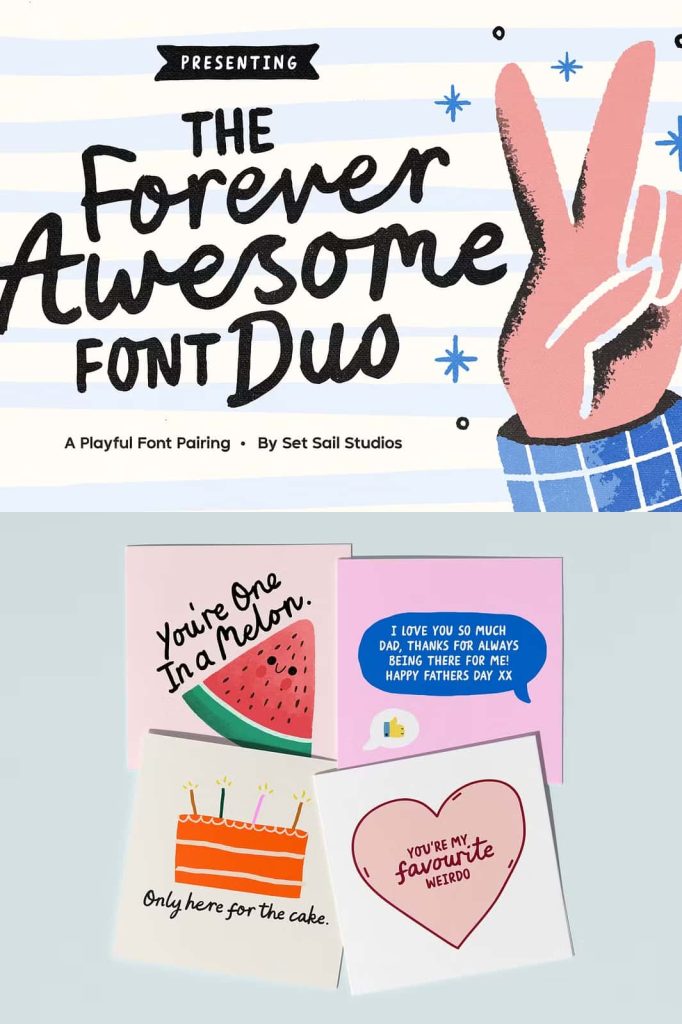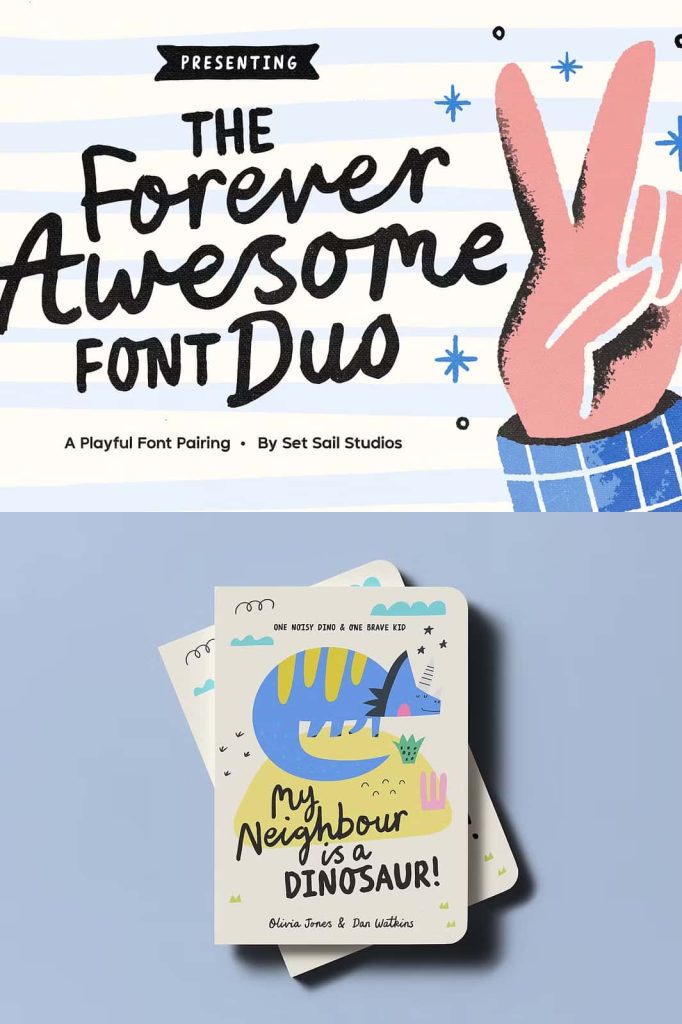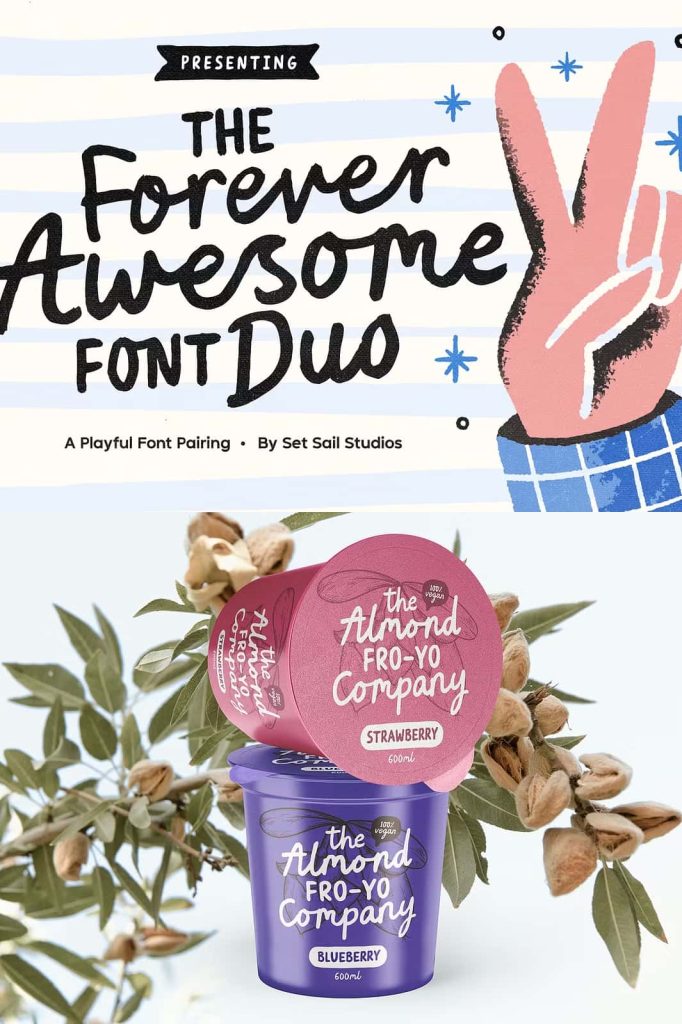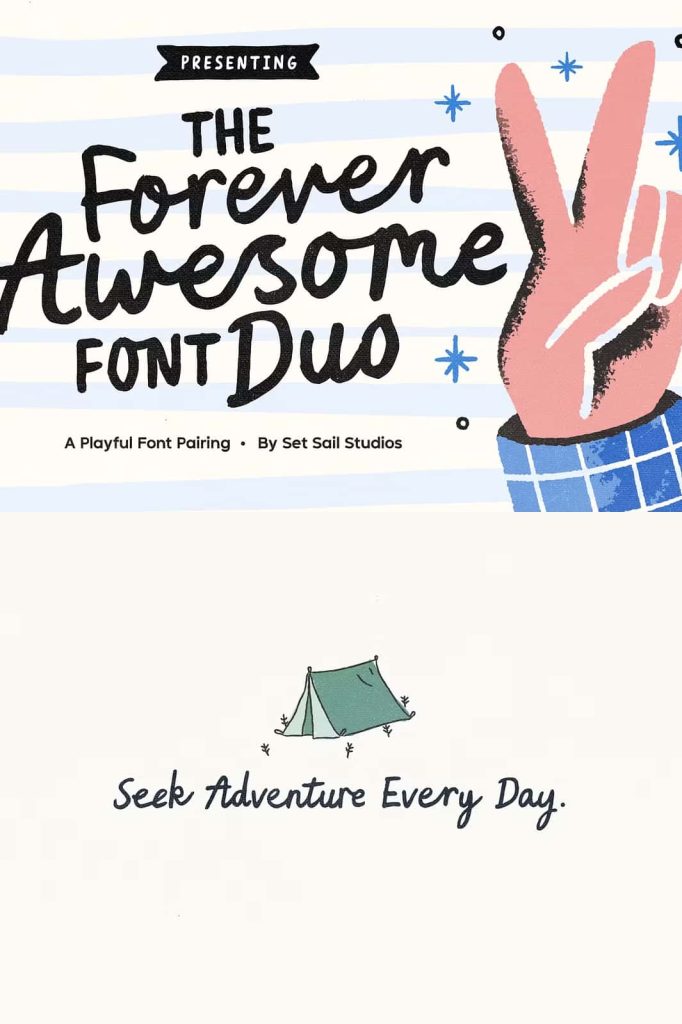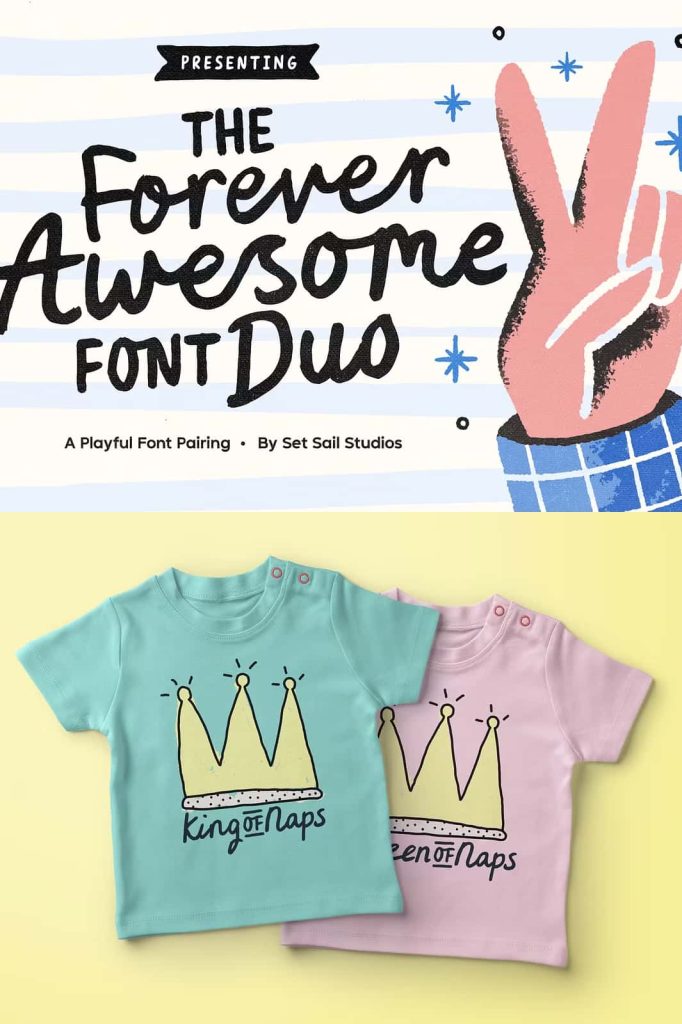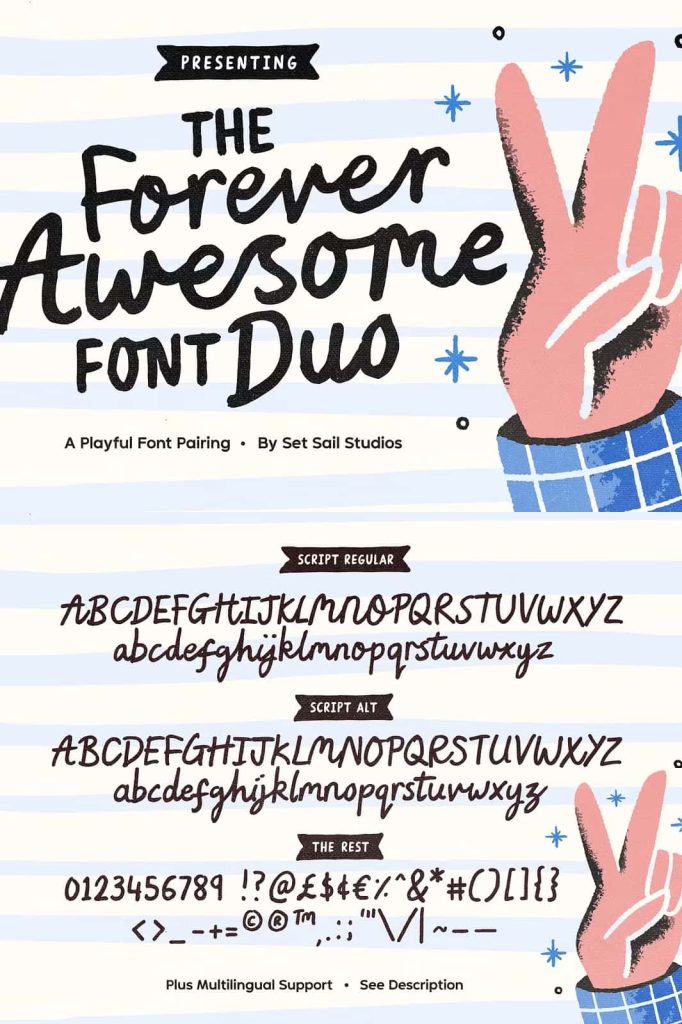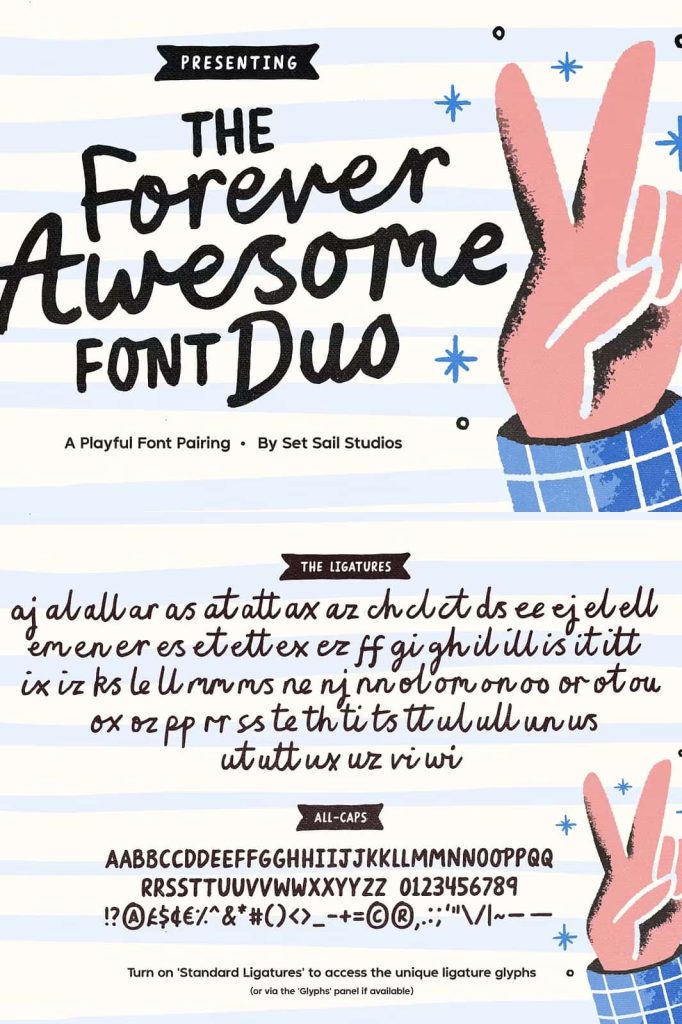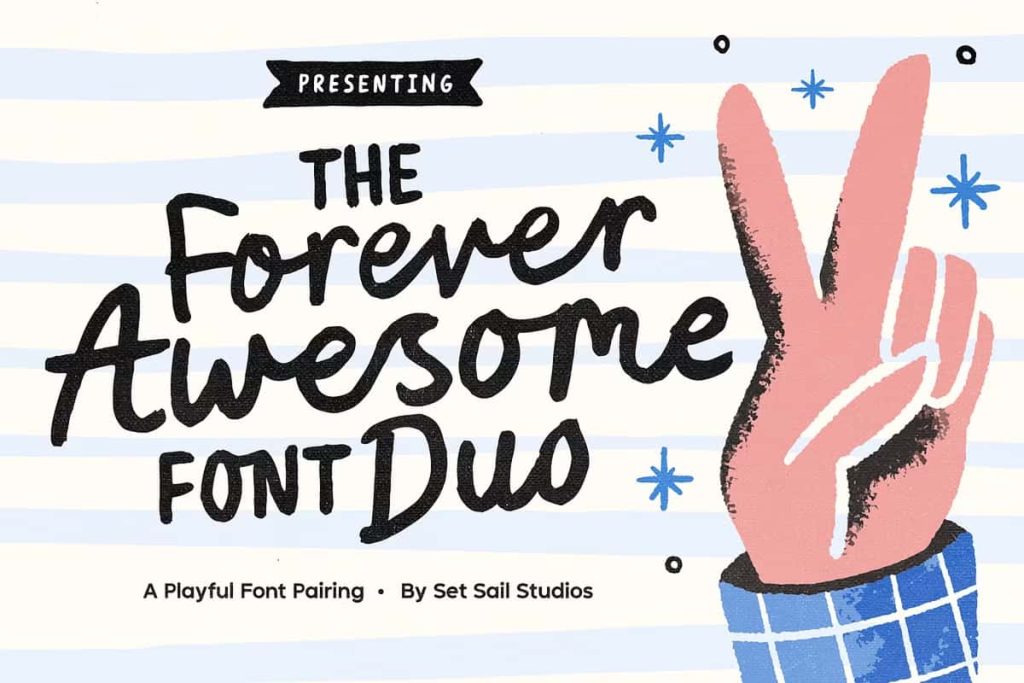
Forever Awesome Font Duo
Forever Awesome Font Duo – A Playful Hand-Drawn Typeface for Creative and Friendly Designs
Forever Awesome Font Duo is a charming and expressive font combination designed to bring warmth, personality, and creativity to your design projects. Featuring beautifully hand-drawn letterforms, this font duo captures the natural imperfections of handwritten typography while maintaining excellent readability and visual appeal. Its playful style creates an inviting and authentic look that helps brands and creatives connect with audiences on a more personal level.
Whether you are creating memorable logos, inspirational quotes, product packaging, greeting cards, social media graphics, or children’s products, Forever Awesome Font Duo delivers a fun and approachable appearance. The combination of complementary font styles allows designers to build eye-catching typography compositions that feel energetic, friendly, and full of character.
A Hand-Drawn Font Duo Full of Personality
Forever Awesome Font Duo stands out through its handcrafted appearance and lively design. Every letter reflects the natural movement and charm of handwritten text, giving projects a unique and authentic touch. Unlike rigid or overly formal typefaces, this font duo embraces creative imperfections that make designs feel more personal and engaging.
The playful nature of the font allows designers to create content that feels welcoming and relatable. Its casual style communicates positivity and creativity, making it suitable for projects that require a friendly and approachable visual identity. Whether used for headlines, logos, or decorative text elements, the font instantly adds character and energy.
Perfect for Logo and Branding Design
Creating a memorable brand identity requires typography that reflects personality and values. Forever Awesome Font Duo helps businesses and creative professionals develop branding materials that feel authentic, fun, and distinctive. The hand-drawn style adds originality to logo designs, making brands appear more approachable and memorable.
Small businesses, handmade product creators, craft stores, creative agencies, and family-oriented brands can benefit from the font’s cheerful and inviting appearance. The combination of font styles offers flexibility when designing logos, taglines, and brand messaging while maintaining a cohesive visual identity.
Branding Applications
• Creative business logos
• Handmade product branding
• Artisan packaging design
• Personal brand identities
• Boutique store marketing materials
• Website headings and banners
• Promotional campaigns and advertisements
Create Inspiring Quotes and Social Media Graphics
Forever Awesome Font Duo is an excellent choice for quote designs and social media content. Its playful handwritten style helps transform simple messages into visually engaging graphics that capture attention and encourage interaction. The font works beautifully for motivational quotes, inspirational content, lifestyle branding, and creative storytelling.
Content creators, influencers, bloggers, and marketing professionals can use the font to develop unique social media posts that stand out across platforms. Its friendly appearance helps create stronger emotional connections with audiences while reinforcing a consistent visual style.
Ideal for Packaging and Product Design
Packaging plays an important role in attracting customers, and typography can significantly influence purchasing decisions. Forever Awesome Font Duo helps products appear more approachable, creative, and memorable. The hand-drawn aesthetic adds authenticity to packaging designs, making products feel handcrafted and unique.
This font duo works particularly well for handmade goods, organic products, craft items, gift products, food packaging, beauty products, and boutique collections. Its cheerful personality helps brands create packaging that stands out on shelves and leaves a positive impression on customers.
Perfect for Children’s Products and Educational Materials
The fun and playful nature of Forever Awesome Font Duo makes it especially suitable for kid-friendly designs. Its lively letterforms create a welcoming atmosphere that appeals to children while remaining clear and readable. Designers can use the font for educational materials, activity books, classroom decorations, learning resources, and children’s branding projects.
The font’s friendly style helps create engaging visual experiences that encourage learning and creativity. Whether designing products for schools, toy brands, children’s events, or family-focused businesses, Forever Awesome Font Duo provides the perfect balance of fun and functionality.
Design Beautiful Greeting Cards and Invitations
Greeting cards and invitations often require typography that feels personal and heartfelt. Forever Awesome Font Duo delivers exactly that with its expressive handwritten appearance. The font helps designers create meaningful messages that feel genuine and memorable for special occasions.
Whether you are building a unique brand identity, designing eye-catching packaging, creating engaging social media content, or producing memorable greeting cards, Forever Awesome Font Duo provides the flexibility and character needed to make your designs stand out. With its friendly personality and handcrafted charm, this font duo is an excellent addition to any designer’s creative toolkit.